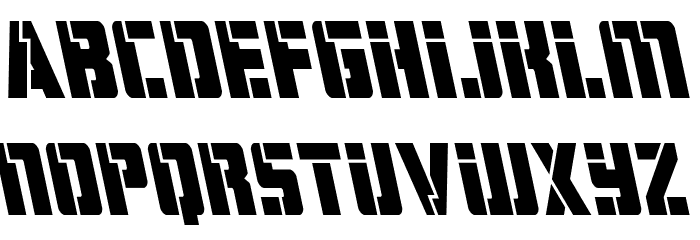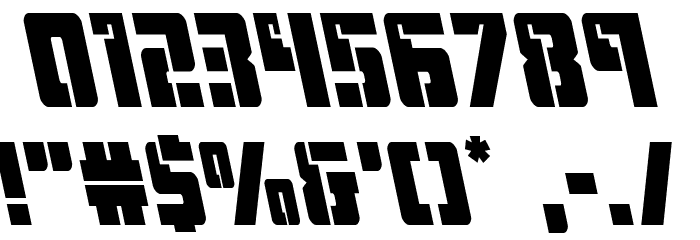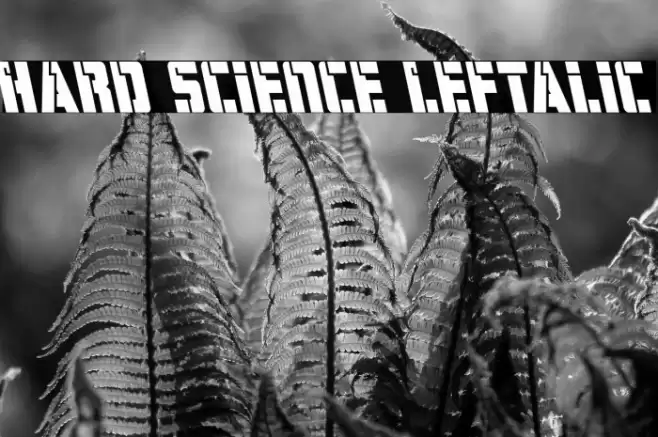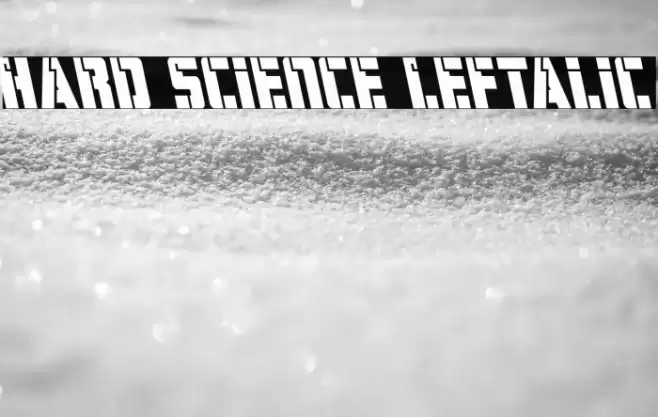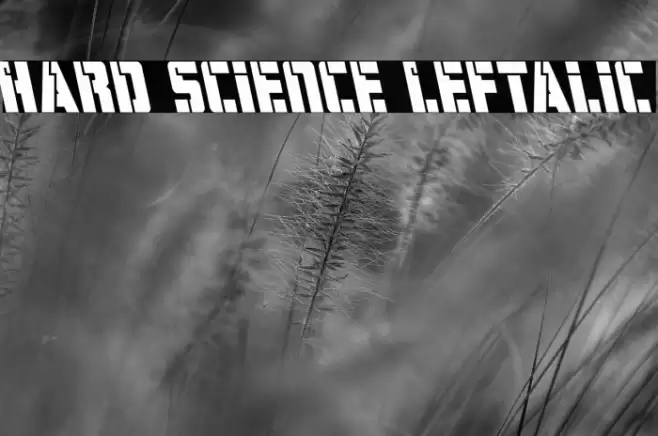
Hard Science Leftalic Font
This font features a bold and angular design with a futuristic and industrial aesthetic. The characters are constructed with sharp edges and geometric shapes, giving them a strong and impactful presence. The uppercase and lowercase letters maintain a consistent style, with each character exhibiting a unique cut or angle that adds to the overall dynamic appearance. The numbers and special characters follow the same design principles, ensuring uniformity across the font. The style is reminiscent of stencil or military fonts, with a modern twist that makes it suitable for attention-grabbing headlines or branding materials. The boldness of the font ensures high visibility, making it ideal for projects that require a strong visual impact.
A bold, angular font with a futuristic and industrial design.